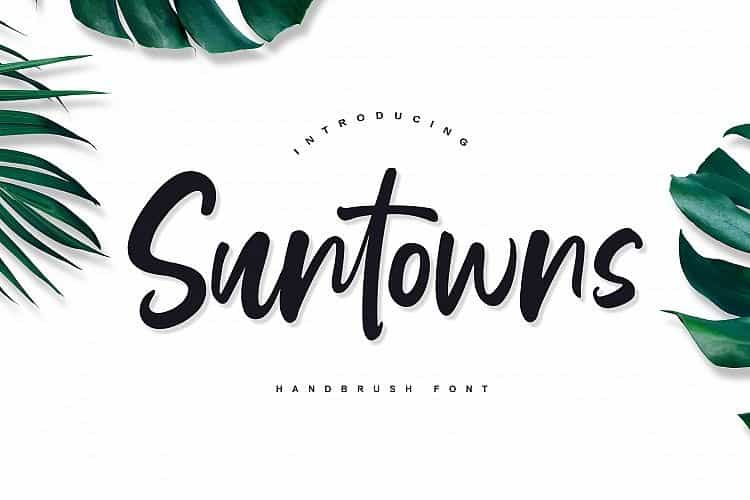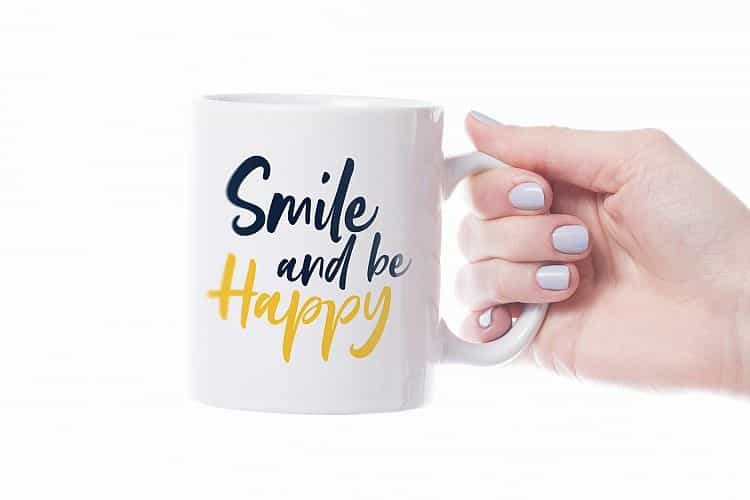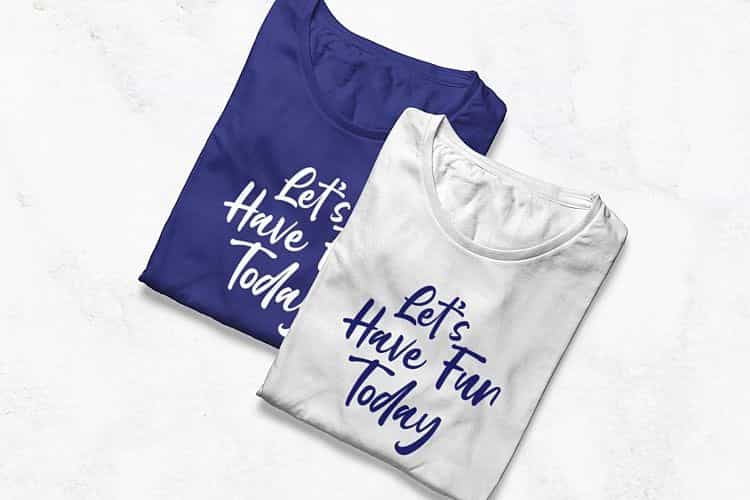
Suntowns Font is both cute and playful, but at the same time elegant. This font can be used for a lot of things, from greeting cards to the headlines and is sure to give your next design that charming touch.